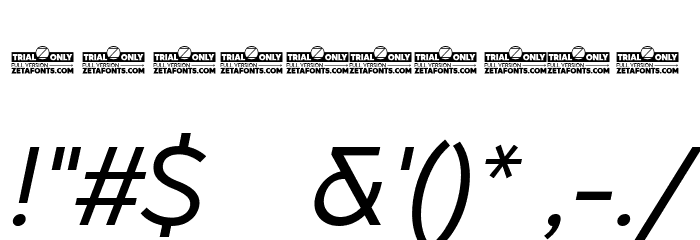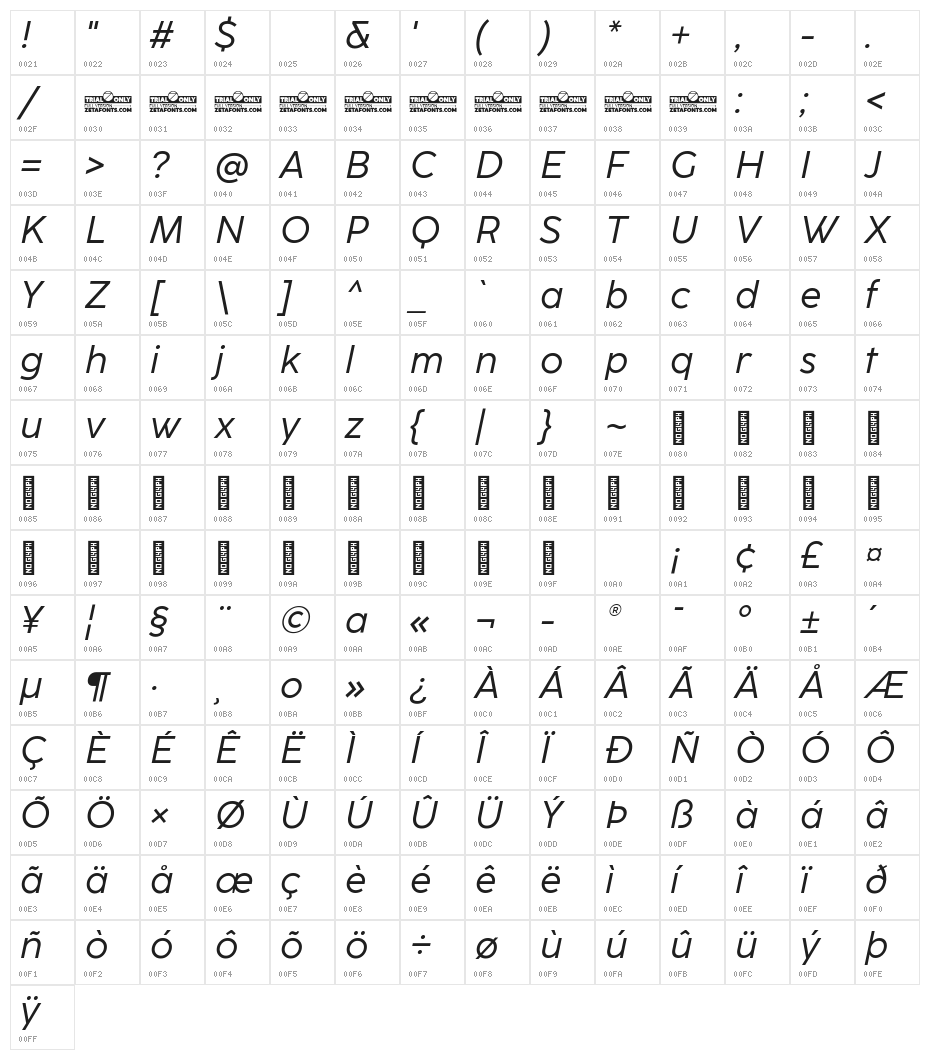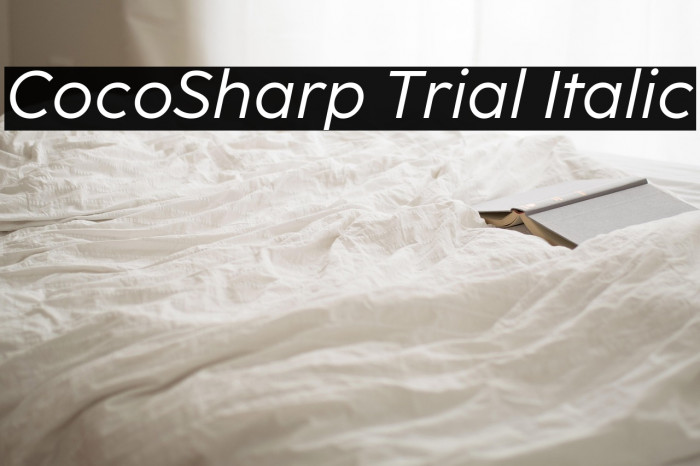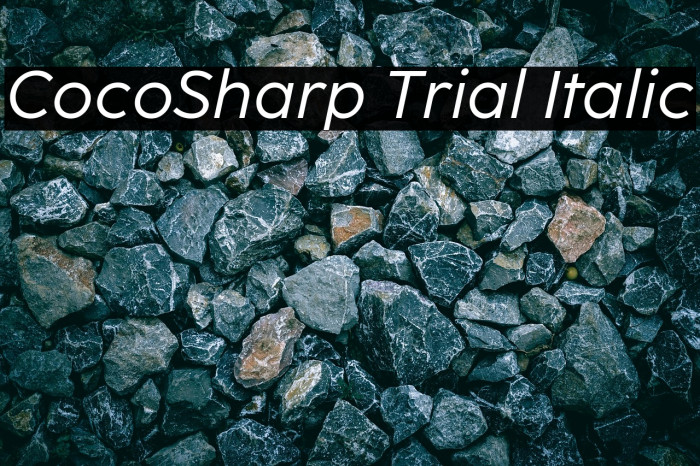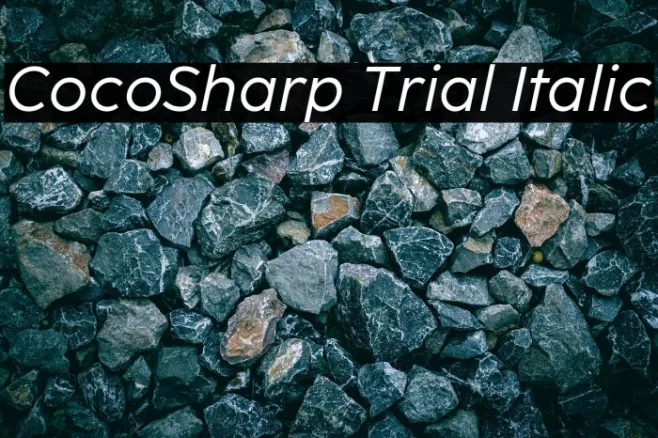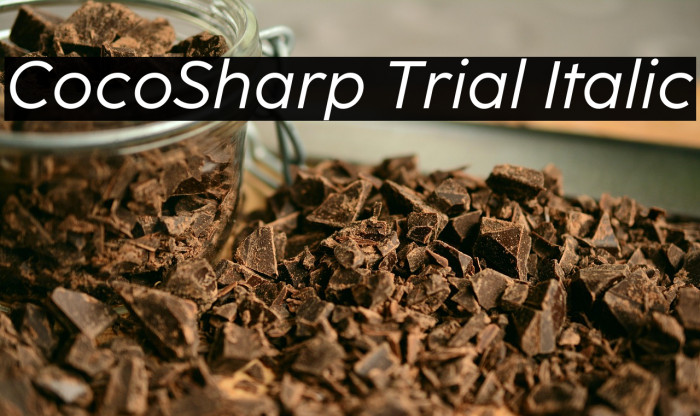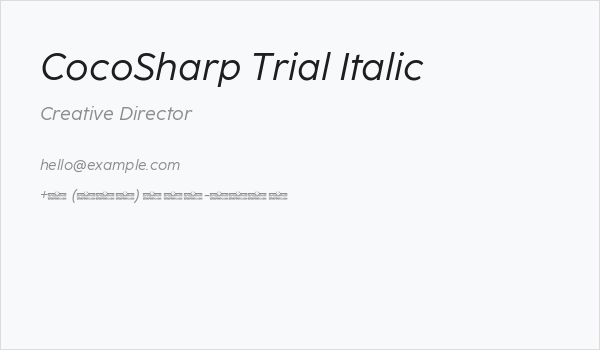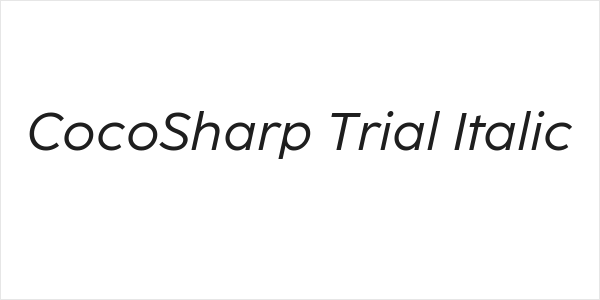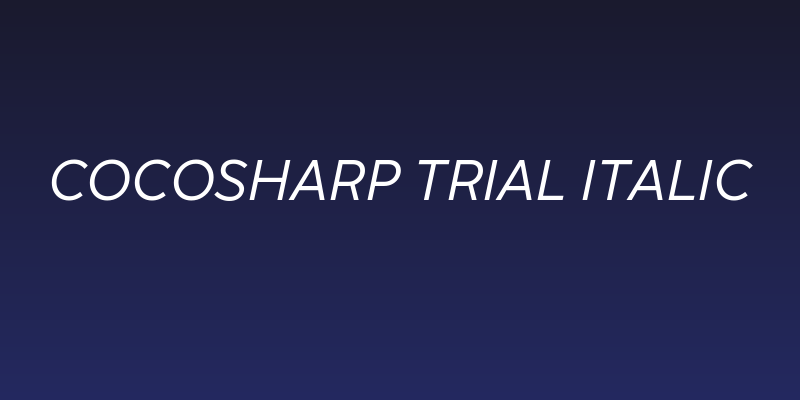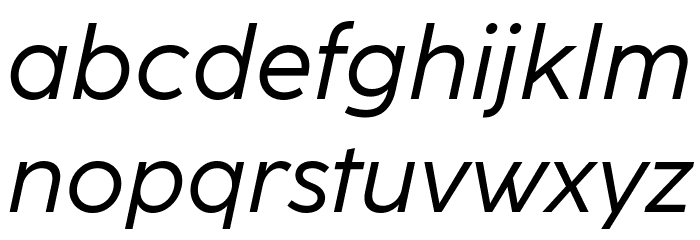
CocoSharp Trial Italic Font
CocoSharp Trial Italic Description
This font features a sleek and modern design with a slight italic slant, giving it a dynamic and contemporary feel. The characters are clean and well-defined, with smooth curves and a consistent stroke width that maintains readability across different sizes. The uppercase and lowercase letters are proportionate, and the numerals are clear and distinct. Special characters are included, making it versatile for various applications. The overall appearance is elegant and professional, suitable for both digital and print media.
| Proposed Projects | Ideal for branding, advertising, and editorial design projects where a modern and sleek aesthetic is desired. |